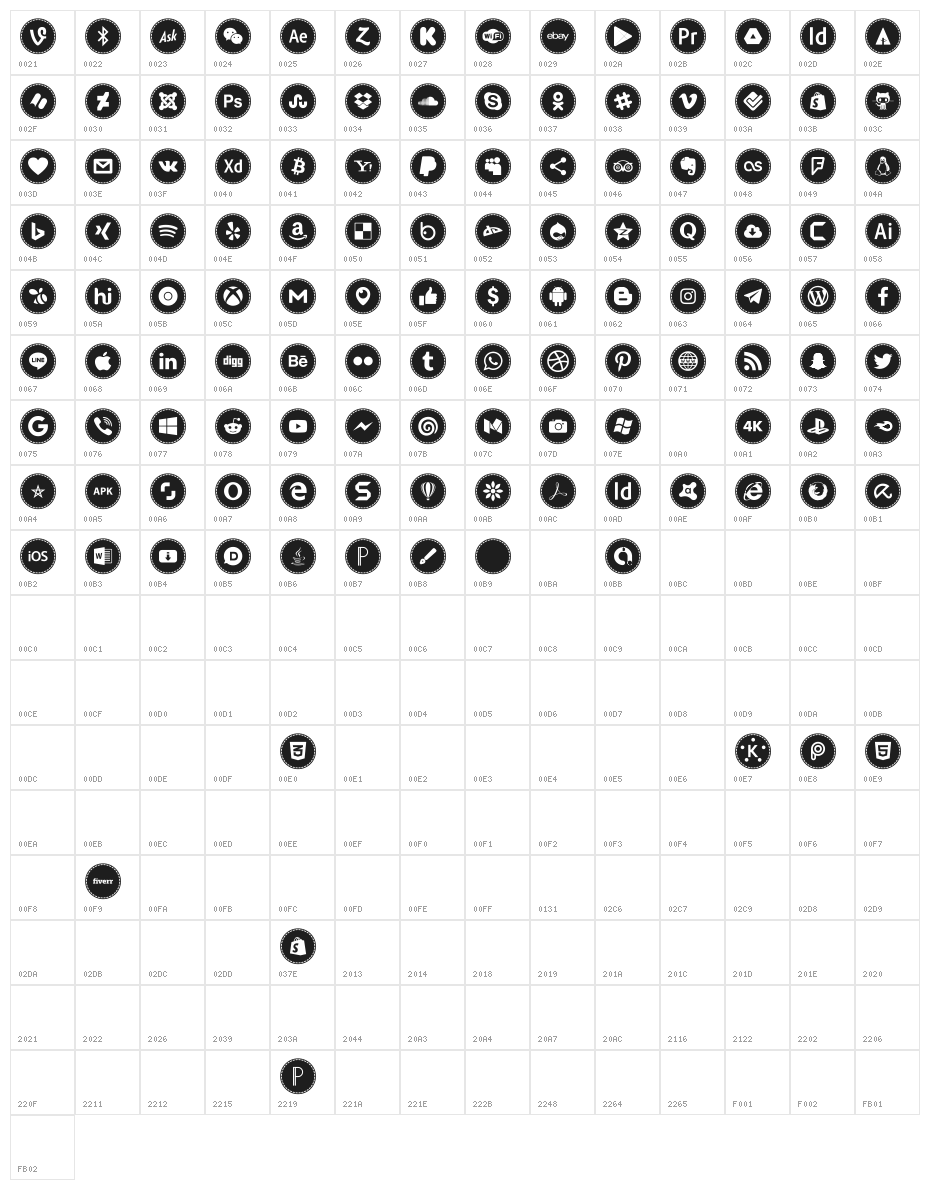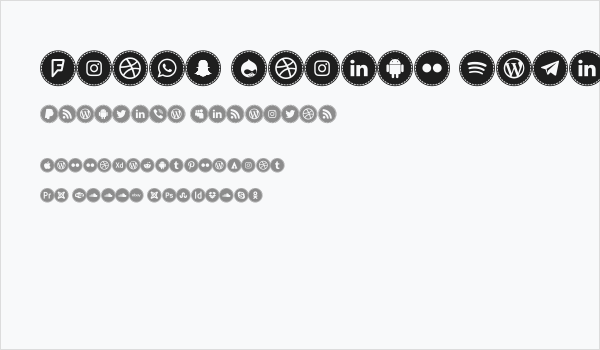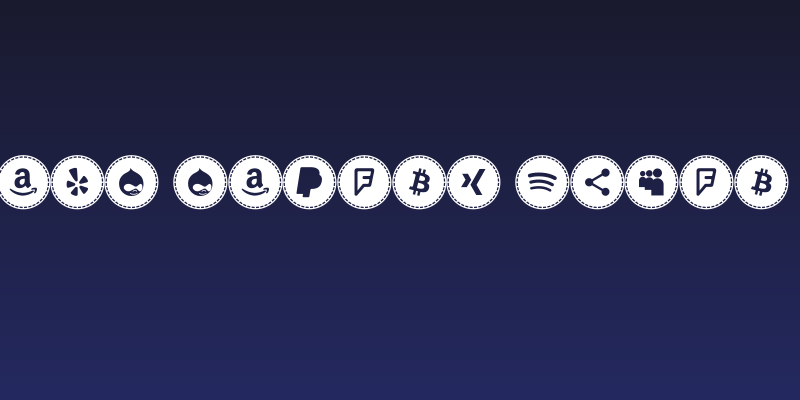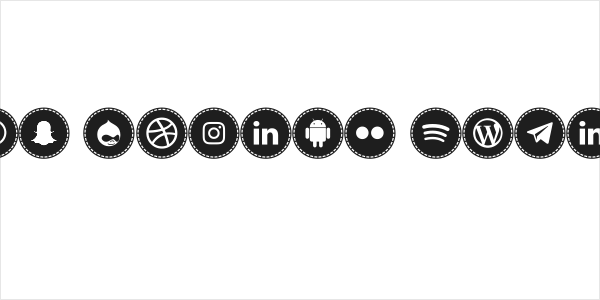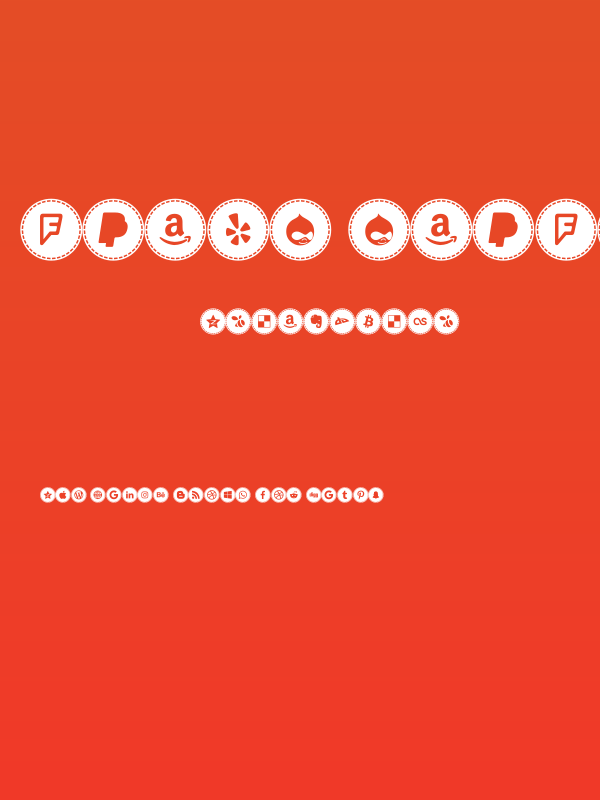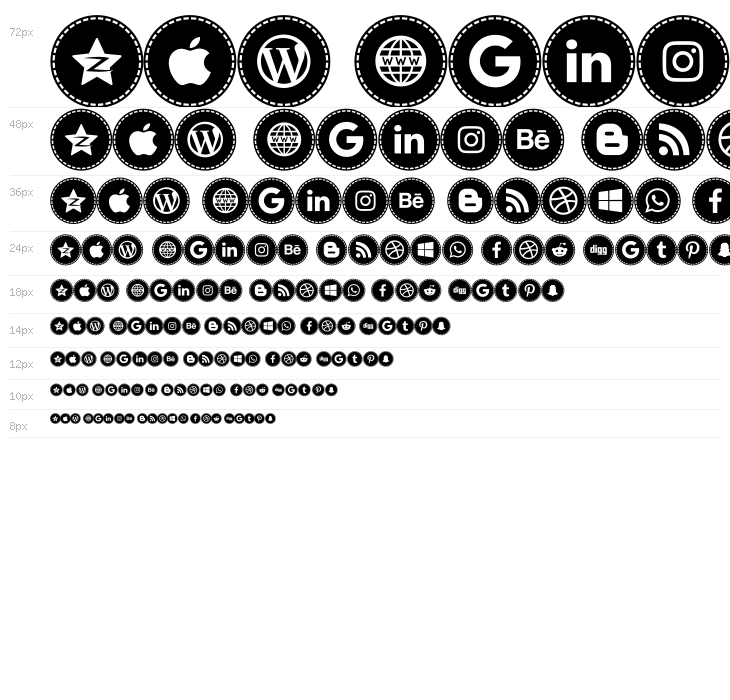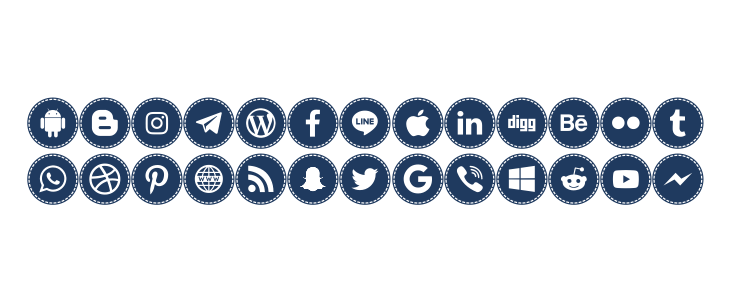
Icons Social Media 16 Font
Icons Social Media 16 Description
A set of monochrome, circular social media and tech brand icons with white symbols on black backgrounds, each encircled by a dotted white border. The icons are simple, flat, and highly recognizable, designed for clarity and uniformity.
| Overall Style | Modern, Minimalist, Decorative |
| Use Case | Icons, UI elements, Social media buttons |
| Proposed Projects | Websites, app interfaces, digital portfolios, presentations, social media links, and branding materials. |